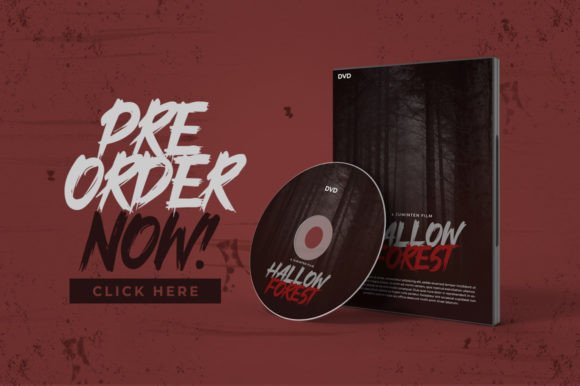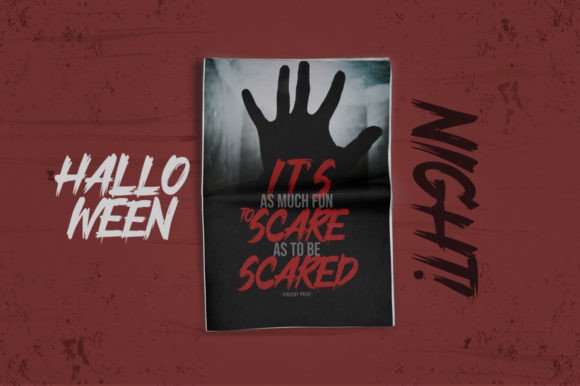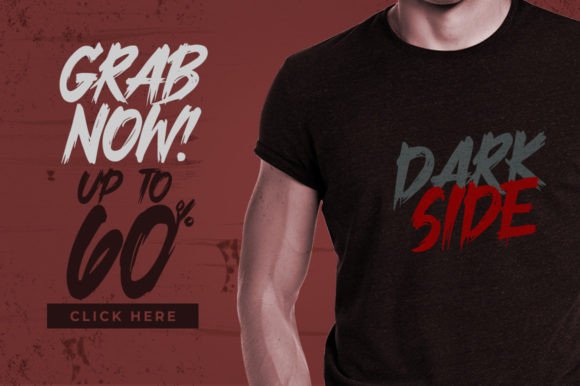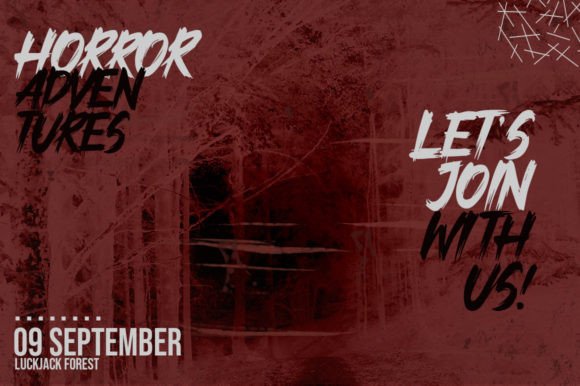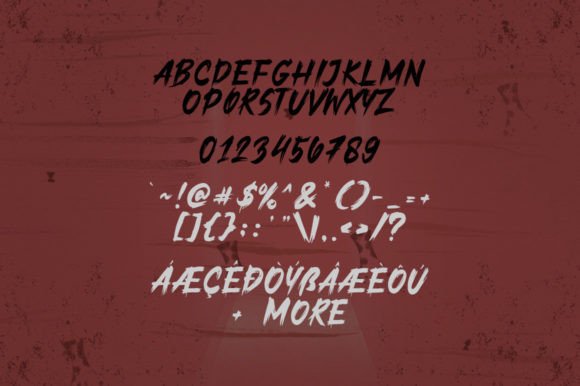
Gloomy Things Font: The Perfect Choice for Spooky Designs
Are you looking for a font that can add a touch of horror and mystery to your designs? Look no further than the Gloomy Things font. This unique and attractive display font is perfect for designs with horror and Halloween concepts. In this article, we’ll take a closer look at the Gloomy Things font and explore its features, uses, and benefits.
What is Gloomy Things Font?
The Gloomy Things font is a display font designed to evoke a sense of eeriness and foreboding. Its unique and quirky design makes it stand out from other fonts, and it’s perfect for adding a touch of horror to your designs. Whether you’re creating a poster, a logo, or a social media graphic, the Gloomy Things font is sure to make your design stand out.
Features of Gloomy Things Font
The Gloomy Things font has several features that make it a great choice for designers. Some of its key features include:
- Unique Design: The Gloomy Things font has a unique and quirky design that sets it apart from other fonts.
- Display Font: This font is designed specifically for display purposes, making it perfect for headlines, titles, and other attention-grabbing elements.
- Horror and Halloween Themes: The Gloomy Things font is perfect for designs with horror and Halloween themes, adding a touch of eeriness and foreboding to your designs.
- Versatile: Despite its unique design, the Gloomy Things font is surprisingly versatile and can be used in a variety of contexts.
Uses of Gloomy Things Font
The Gloomy Things font is perfect for a variety of design projects, including:
- Horror and Halloween Posters: Add a touch of horror to your posters with the Gloomy Things font.
- Logos and Branding: Create a unique and memorable logo with the Gloomy Things font.
- Social Media Graphics: Add a touch of eeriness to your social media graphics with the Gloomy Things font.
- Invitations and Party Decor: Create spooky invitations and party decor with the Gloomy Things font.
Benefits of Using Gloomy Things Font
There are several benefits to using the Gloomy Things font in your designs. Some of the benefits include:
- Instant Recognition: The Gloomy Things font is sure to grab attention and create instant recognition.
- Unique Design: The Gloomy Things font has a unique design that sets it apart from other fonts.
- Easy to Read: Despite its quirky design, the Gloomy Things font is easy to read, making it perfect for headlines and titles.
- Versatile: The Gloomy Things font can be used in a variety of contexts, from horror and Halloween designs to logos and branding.
Tips for Using Gloomy Things Font
Here are a few tips for using the Gloomy Things font in your designs:
- Use it Sparingly: The Gloomy Things font is a bold font, so use it sparingly to avoid overwhelming your design.
- Pair it with Other Fonts: Pair the Gloomy Things font with other fonts to create a unique and interesting design.
The Gloomy Things font is a unique and attractive display font that’s perfect for designs with horror and Halloween concepts. Its quirky design and versatility make it a great choice for designers and crafters. Whether you’re creating a poster, a logo, or a social media graphic, the Gloomy Things font is sure to add a touch of horror and mystery to your design.
In conclusion, the Gloomy Things font is a great choice for designers and crafters looking to add a touch of horror and mystery to their designs. Its unique design, versatility, and ease of use make it a great addition to any design project.